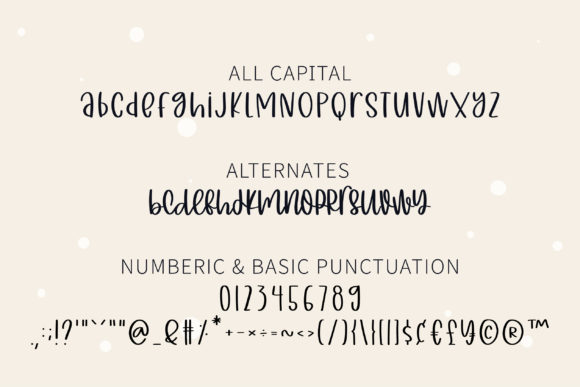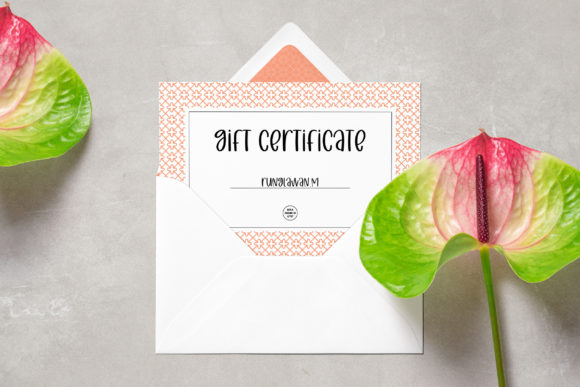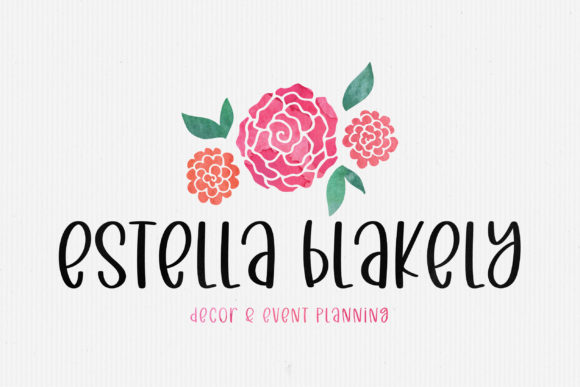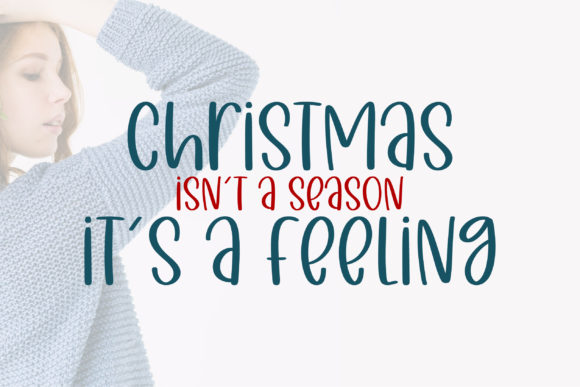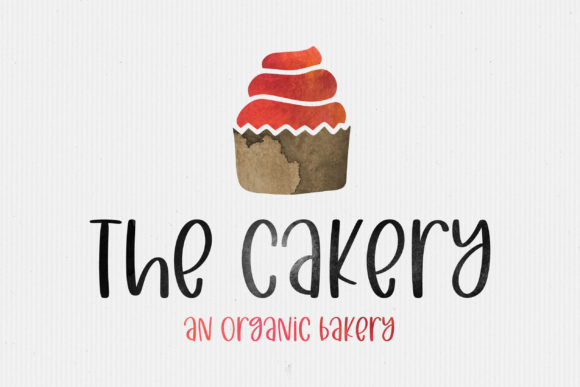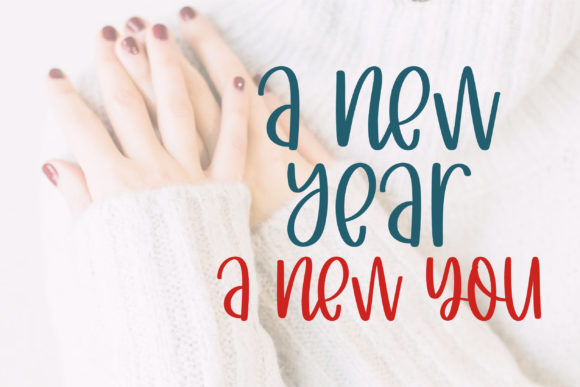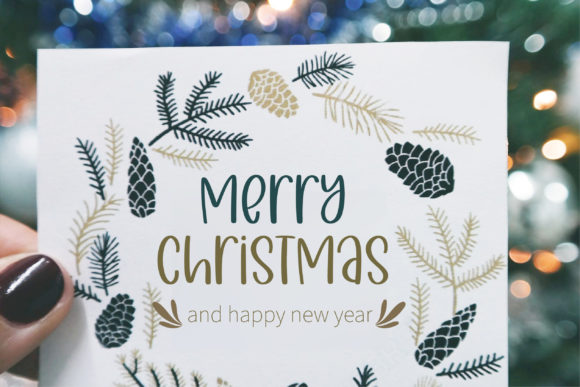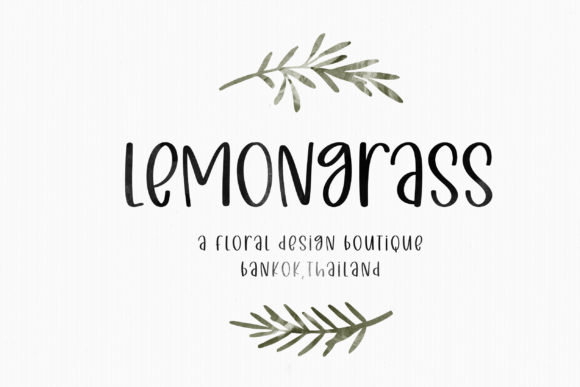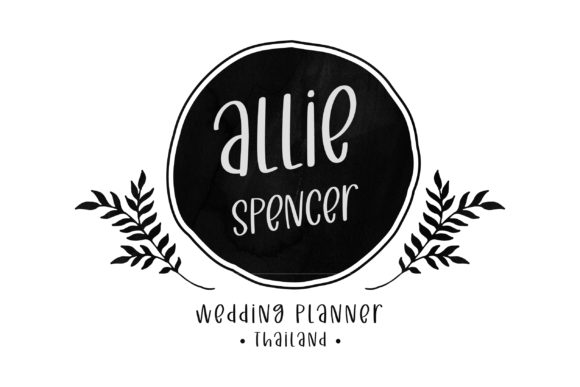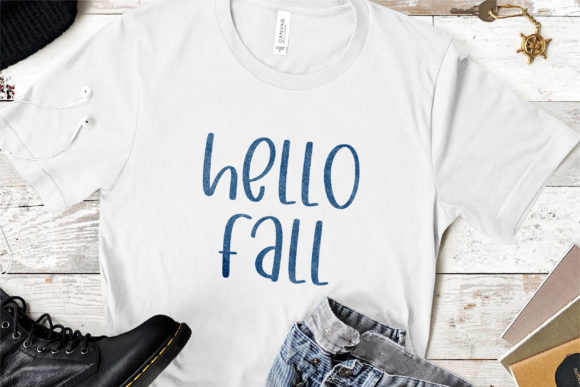
Christmas Sweater Font
About Christmas Sweater Font
“Christmas Sweater” is a font that brings a touch of sweetness and whimsy to every design it graces. With flowing letterforms that exude a sense of warmth and familiarity, this font captures the essence of festive joy. As you explore its incredibly versatile style, you’ll discover its potential to transform a wide array of projects into delightful works of art.
The charm of “Christmas Sweater” lies in its ability to evoke feelings of coziness and celebration. Its playful strokes and unique character lend themselves beautifully to a variety of creative endeavors. From crafting enchanting wedding invitations that mirror the magic of the season to curating stationary art that spreads holiday cheer, this font effortlessly infuses your work with a sense of festive spirit.
In the realm of social media, “Christmas Sweater” shines as a tool to create eye-catching and engaging posts. Its flowing handwritten style adds a personal and inviting touch to your messages, making them stand out in a sea of content. Whether you’re sharing holiday greetings, announcing special offers, or simply sharing your joy with your audience, this font amplifies your message with a hint of seasonal magic.
Embrace the versatility of “Christmas Sweater” to explore the endless possibilities it offers. Its ability to evoke feelings of warmth and happiness makes it the perfect choice for a range of projects, from wedding invitations and stationary art to social media posts and beyond. Fall in love with the festive charm of “Christmas Sweater,” and let it be the conduit that spreads joy and creativity throughout your designs.